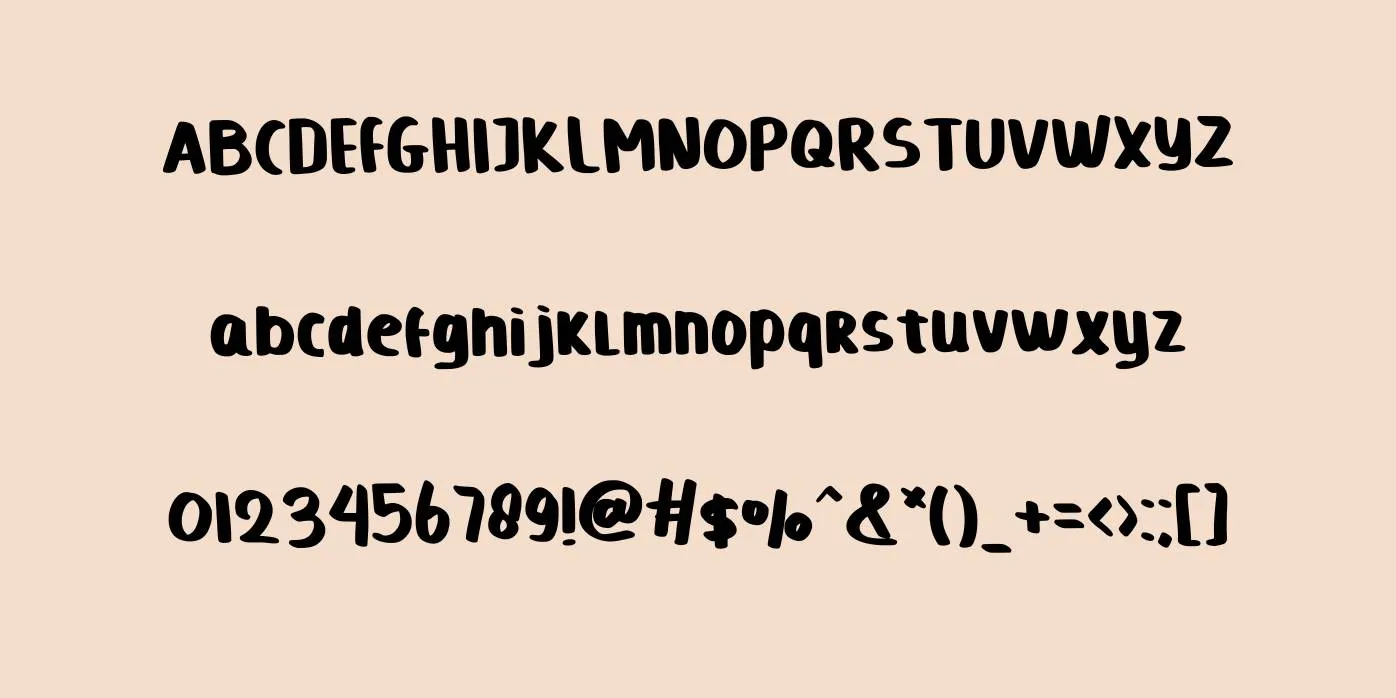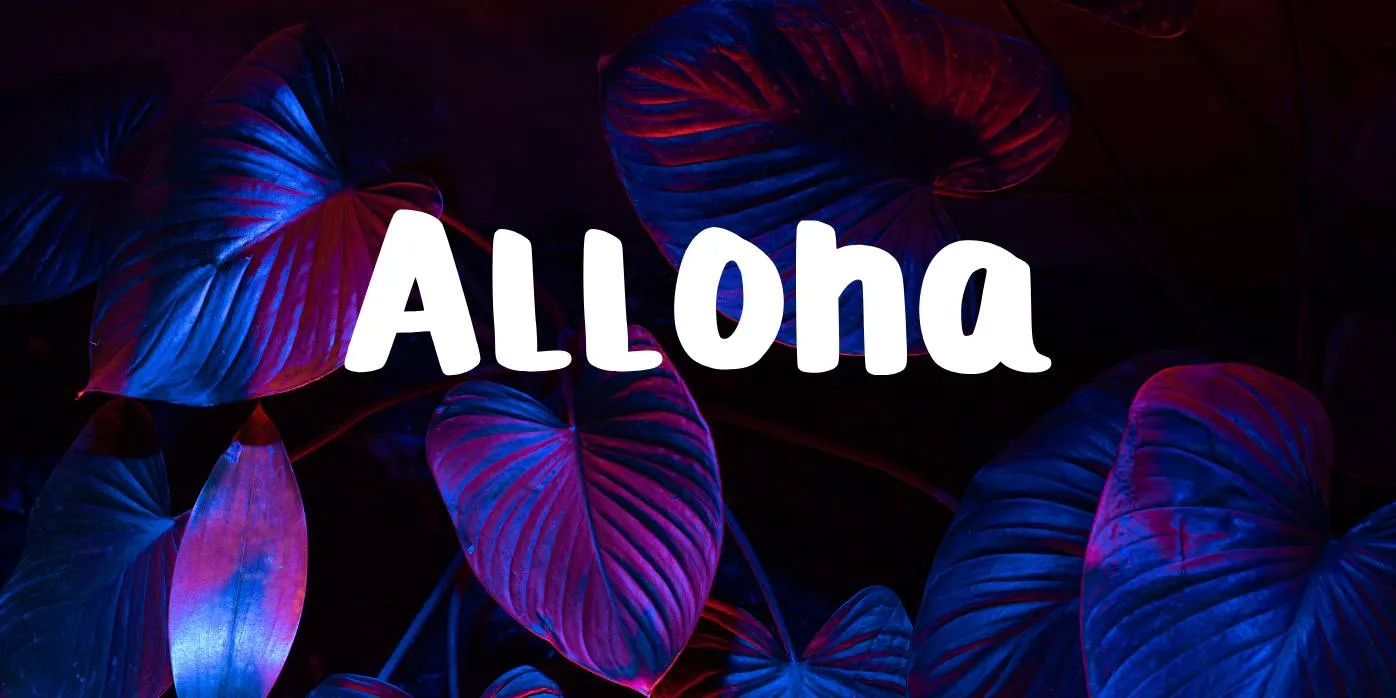
Alloha Font
We talk about an interesting Script typeface the Alloha Font. This font is designed by a famous font designer Valuetype Co. You can make so many different projects by using this font. This font contains 291 characters, 256 glyphs, and 1000 units per Em.
The weight of the font is normal and its width is medium. Unicode supported 2.0 and BMP only. An online generator tool also supports this font in which you can copy and paste your text and make or edit your designs online without downloading the font. It supports file formats TTF (True Type Font) and OTF (Open Type Font).
You can download this font on different devices such as Windows, Mac, and PC. You can also pair it with other fonts like caros font to give a more attractive look to your projects. It is a beautiful and strong font. Usage You can use this font to make many different projects it has different features like small letters, capital letters, numbers, symbols, special characters, and punctuations.
Its attractive and bold look can be used to make attractive headlines. You can make movies and other project titles and logos of any brand or organization. This font is considered a very elegant font for both print and digital media. You can use it for printing T-shirts, mugs, and other fabrics.
You can also make attractive banners, posters, Flyers, and brochures by using this font. To make attractive book covers and magazine covers it can also be used. It is also a suitable choice for making graphic and website designs. You can make different projects in Adobe Photoshop, CSS, and Canva to give a more amazing look to your projects.